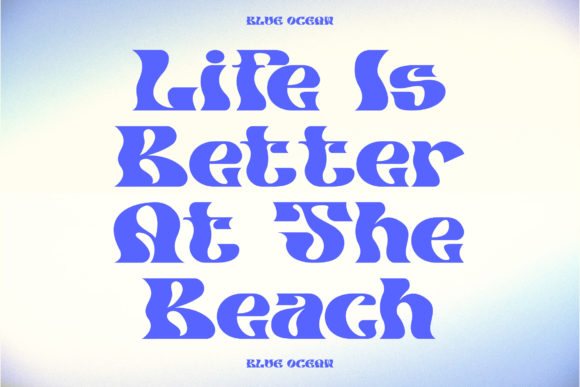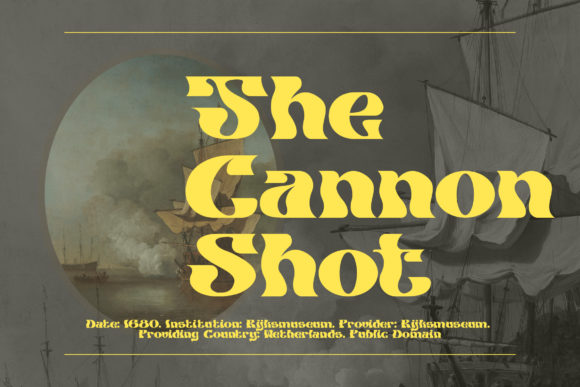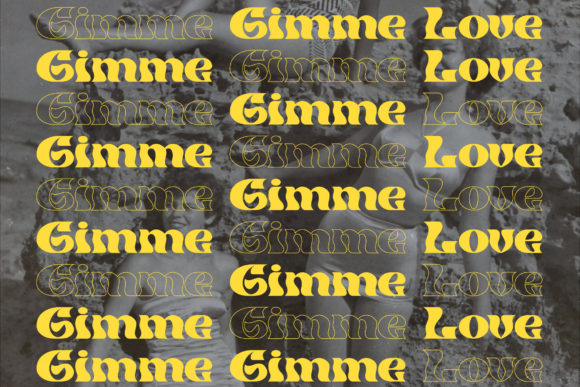
BLUE OCEAN FONT SPECIMEN
Introducing Blue Ocean, a captivating slab serif font that breaks boundaries with its distinct style and contemporary flair. Whether you’re crafting a luxury logo, designing striking book titles, or seeking to elevate your fashion brand, Blue Ocean is your go-to choice for infusing creativity and sophistication into your design projects.
What sets Blue Ocean apart is its creative slab serif design, which exudes individuality and modernity. Each letterform boasts unique characteristics and intricate details, ensuring that your designs stand out with an air of originality. Whether employed in logos, headlines, or body text, Blue Ocean adds a sleek and stylish touch that commands attention and captivates the viewer.
In the realm of branding, Blue Ocean elevates luxury logos to new heights of sophistication. Its creative flair enhances the visual impact of your brand identity, conveying exclusivity and refinement. With its versatility, Blue Ocean seamlessly adapts to diverse industries and design aesthetics, ensuring that your logo communicates your brand’s essence with precision and elegance.
For book or movie titles, Blue Ocean brings a modern and artistic sensibility to your designs. Its unique characteristics inject a sense of creativity and visual allure, transforming titles into visually captivating masterpieces. Whether it’s a contemporary novel, a thought-provoking film, or any other creative project, Blue Ocean lends an air of sophistication that leaves a lasting impression on the audience.
Fashion brands benefit from Blue Ocean’s creative appeal, as it enhances the visual identity of clothing labels, fashion magazines, and related materials. Its stylish and modern look resonates with style-conscious audiences, adding a touch of originality and refinement to every design.
Blue Ocean also serves as a versatile companion for lettering and quotes, infusing your messages with a contemporary and artistic touch. Its creative design allows you to craft stunning typographic compositions that convey your ideas with elegance and flair.
In essence, Blue Ocean is more than just a font; it’s a gateway to creativity and sophistication in design. Whether adorning luxury logos, enhancing book titles, or elevating fashion brands, Blue Ocean empowers designers to make a statement with their creations. Embrace the allure of Blue Ocean and let it breathe life into your design projects with its unique style and modern look.